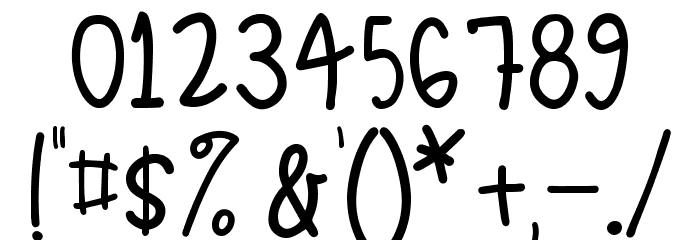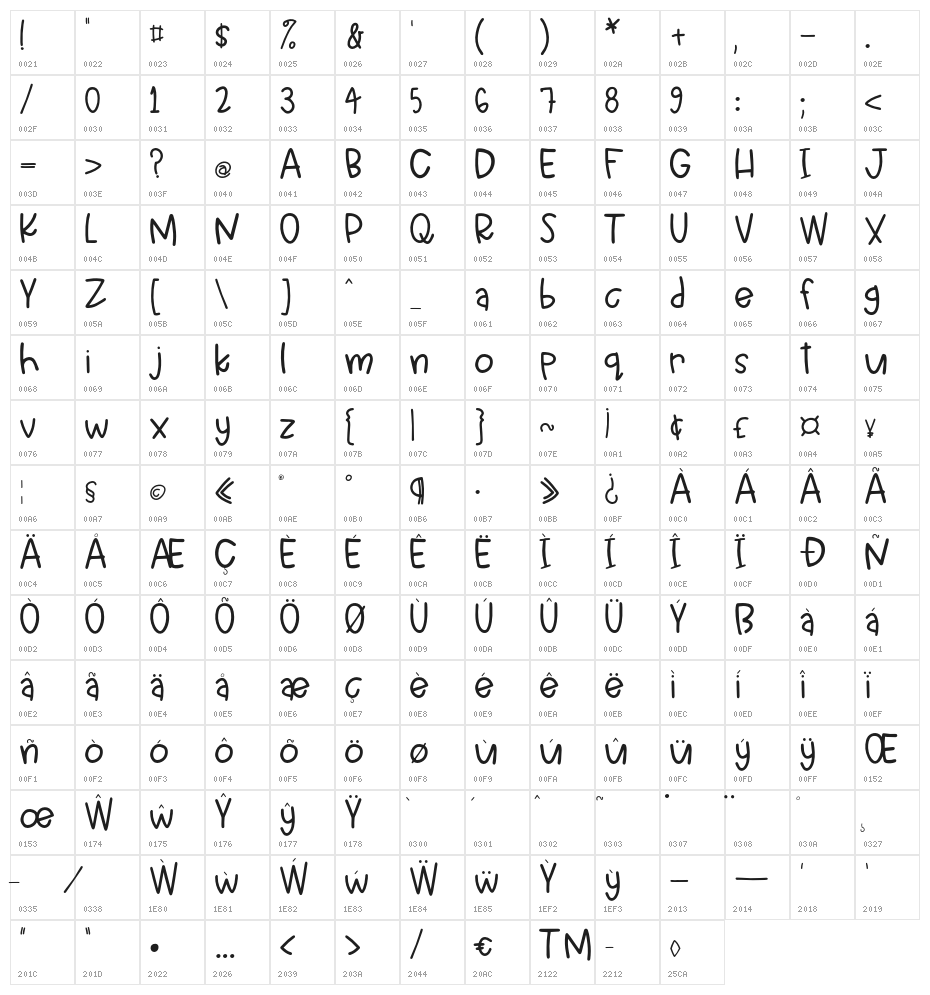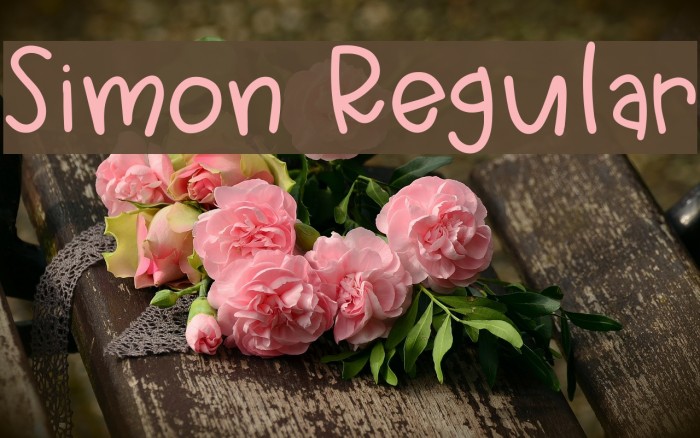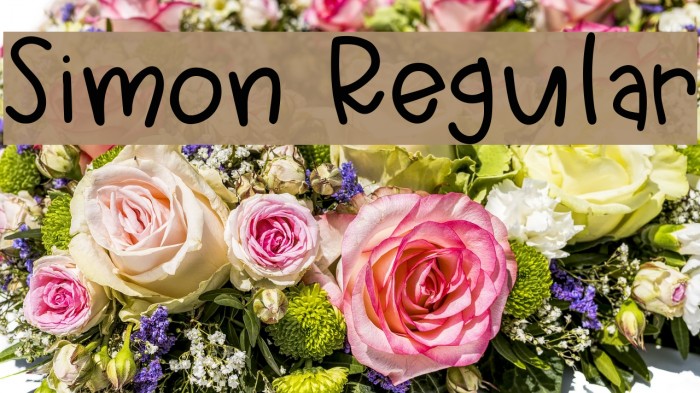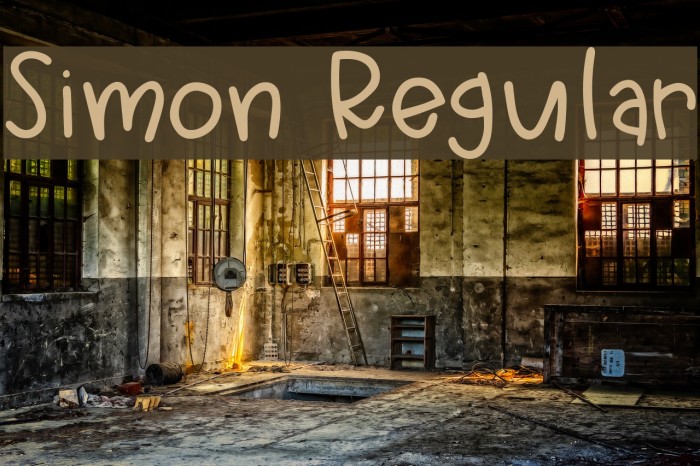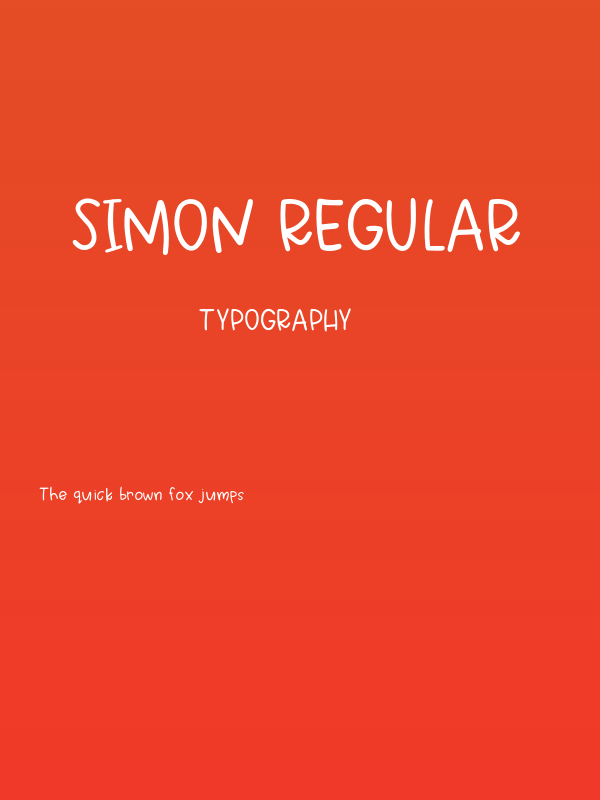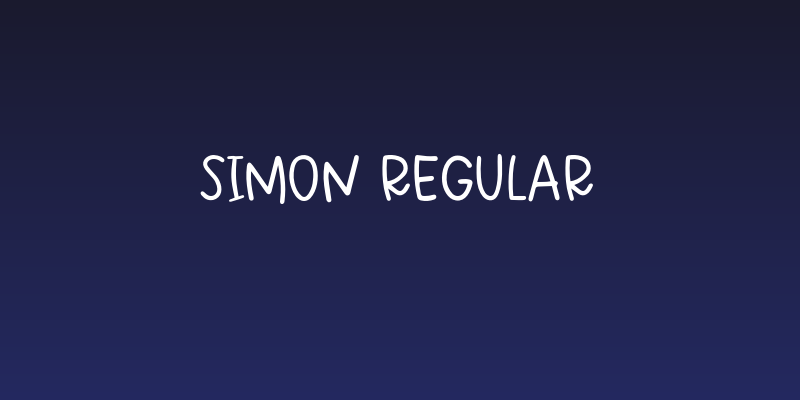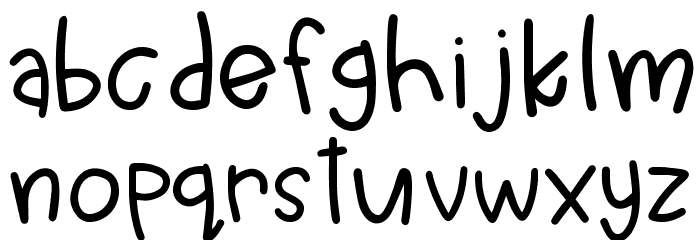
This playful and informal font features a handwritten style with a casual, friendly appearance. The characters are slightly irregular, adding a personal touch that mimics natural handwriting. The strokes are consistent in weight, providing a uniform look across all characters. The font includes both uppercase and lowercase letters, numerals, and a variety of special characters, making it versatile for different uses. Its rounded edges and smooth curves contribute to its approachable and relaxed feel, making it suitable for projects that aim to convey warmth and creativity.
| Proposed Projects | Ideal for greeting cards, children's books, personal blogs, and creative branding projects. |